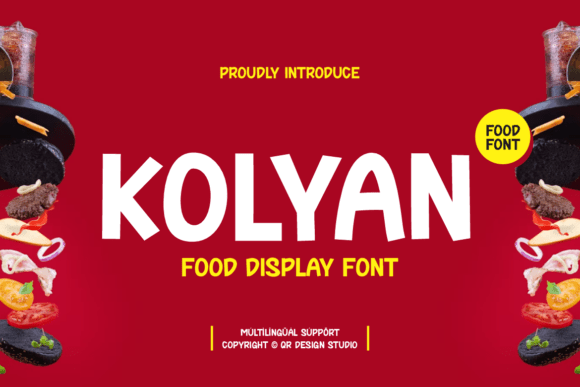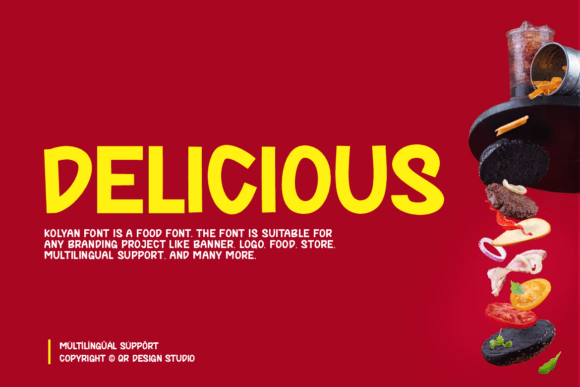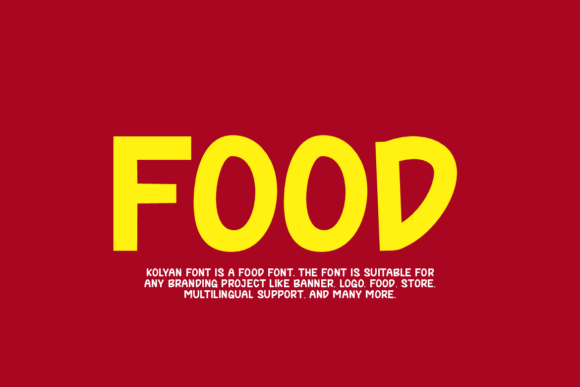
Introduction to Kolyan Font
Remember that moment when you’re brainstorming a creative project and you stumble upon the perfect design resource? The one that instantly sparks inspiration and sets your ideas in motion? For designers looking to add a dash of personality to their work, the Kolyan Font is that game-changing discovery.
With its bold and playful food-themed display font, Kolyan Font is designed to grab attention and leave a lasting impression. Its chunky letterforms and clean edges make it an ideal choice for menus, food truck branding, snack packaging, cooking blogs, and restaurant ads. Whether you’re working on a high-quality design for print or digital use, Kolyan Font delivers energy and friendliness in every letter.
- High-quality font designed for creative projects, offering a unique and stylish look.
- Features a large character set, including international characters and symbols, making it a versatile design resource.
Honest Review: Kolyan Font
As a designer, I’m always on the lookout for high-quality design resources to elevate my creative projects. Recently, I stumbled upon the Kolyan Font, and I’m excited to share my thoughts on this free download.
- ✨ High-quality typography: The Kolyan Font boasts a clean and modern design that’s perfect for various creative projects.
- ✨ Versatility: The font comes in multiple weights and styles, making it an excellent addition to any design library.
- ✨ Transparent background: The font’s transparent background makes it easy to use on various backgrounds and designs.
- ⚠️ Limited language support: The font may not support certain languages, which could be a drawback for designers working on multilingual projects.
- ⚠️ Not ideal for small text: The font’s design may not be suitable for small text sizes, which could affect readability.
Overall, I’m impressed with the Kolyan Font’s quality and versatility. While it may have some limitations, it’s an excellent addition to any design resource library. I’d definitely recommend it for designers looking for a high-quality, free font to use in their creative projects.
For the best results, use the Kolyan Font with a transparent background to create a seamless design. This font is ideal for creative projects, such as logos, posters, and social media graphics. It’s also great for presentations and documents that require a high-quality, professional font.